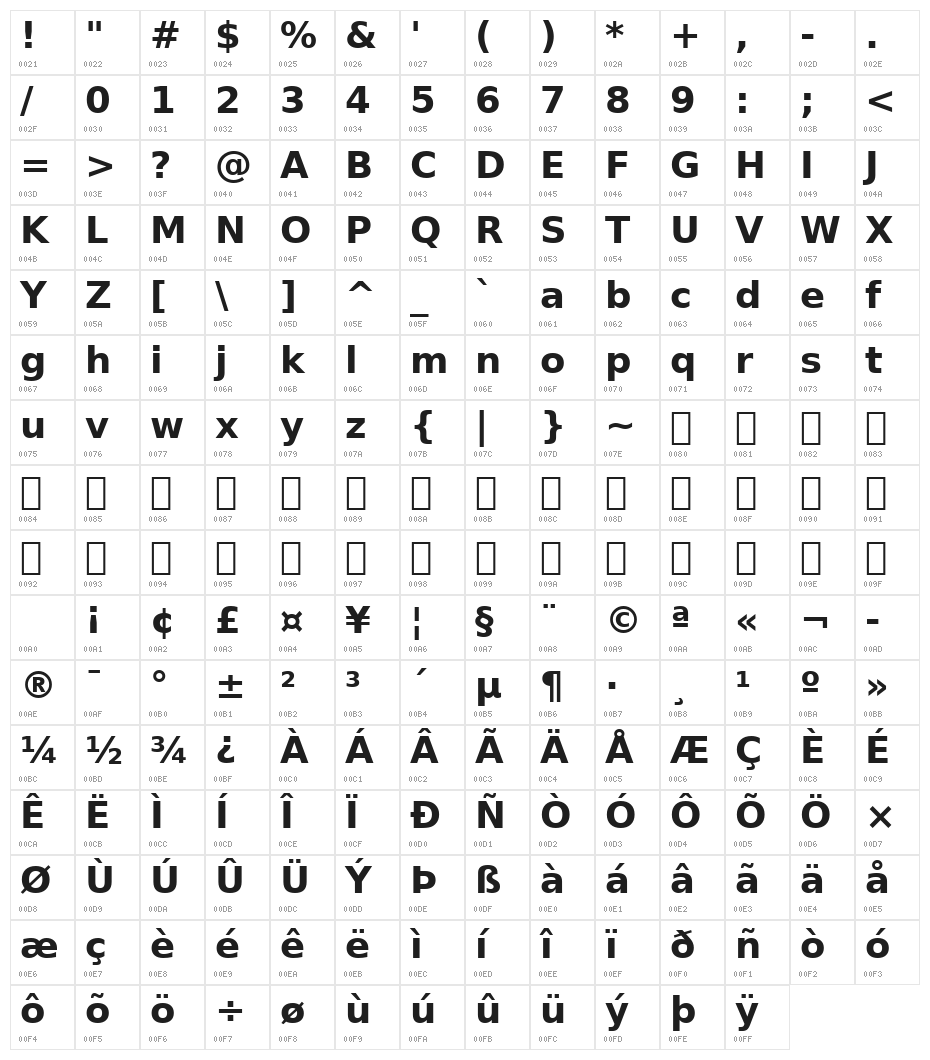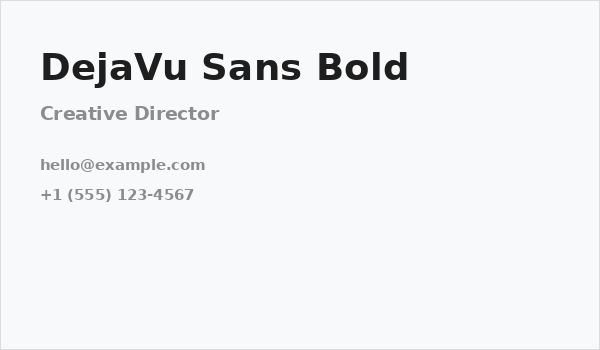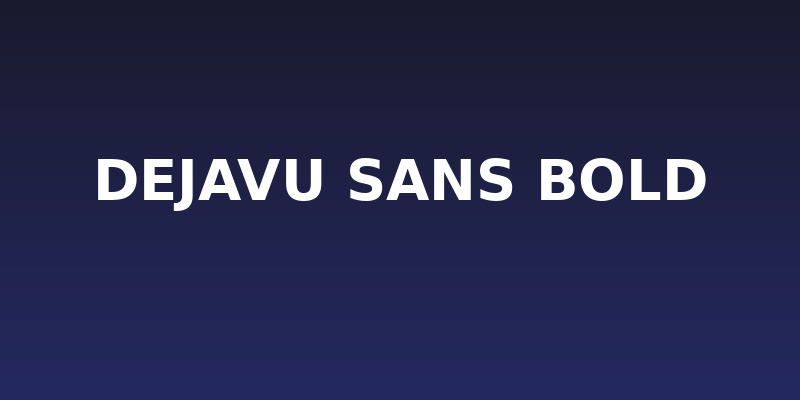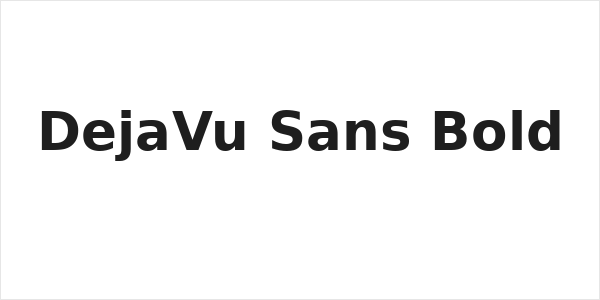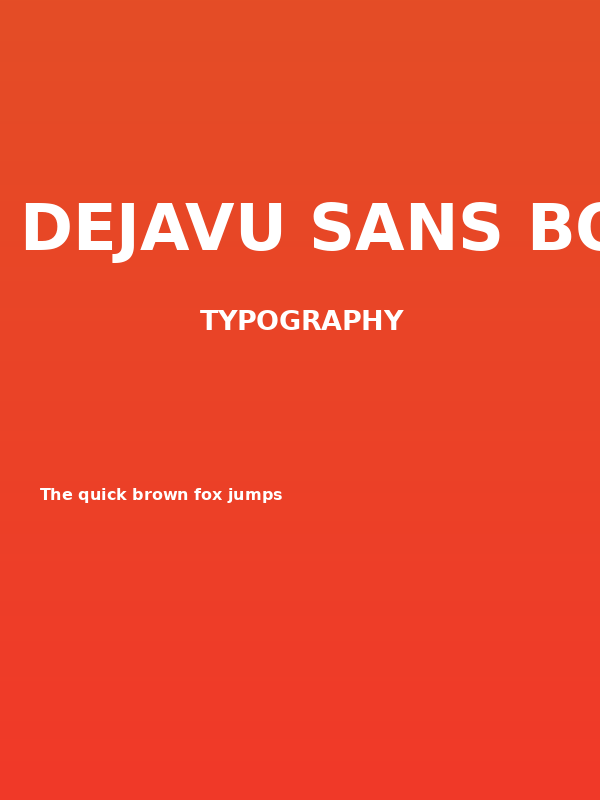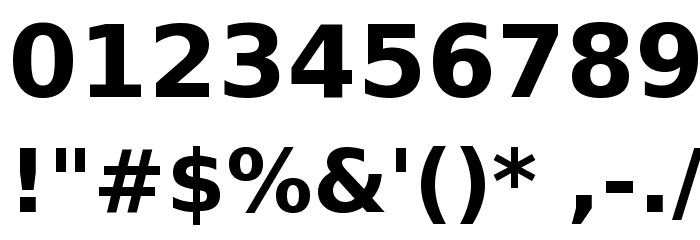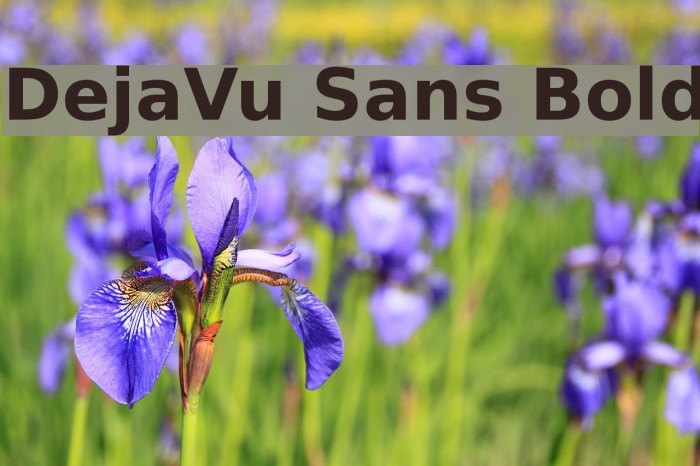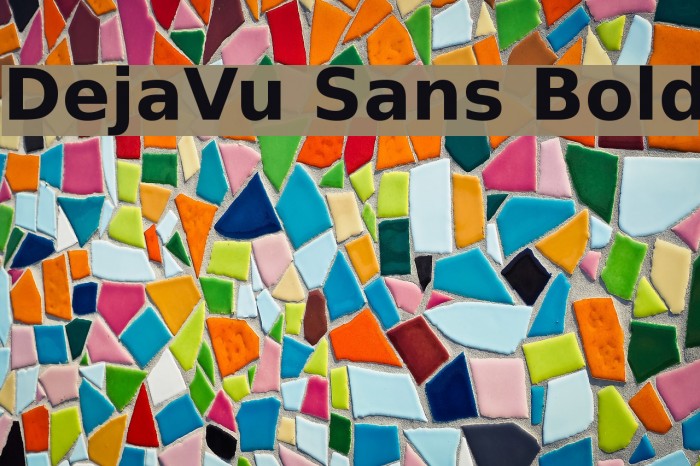
DejaVu Sans Bold Font
DejaVu Sans Bold Description
This font exhibits a clean and modern sans-serif style with bold, uniform strokes that provide a strong visual impact. The characters are well-proportioned, with a consistent weight that enhances readability. The uppercase letters are slightly taller than the lowercase, maintaining a balanced appearance. The numerals are clear and distinct, making them suitable for various applications. Special characters are well-defined, ensuring versatility in usage. The overall design is straightforward, with no unnecessary embellishments, making it ideal for both digital and print media.